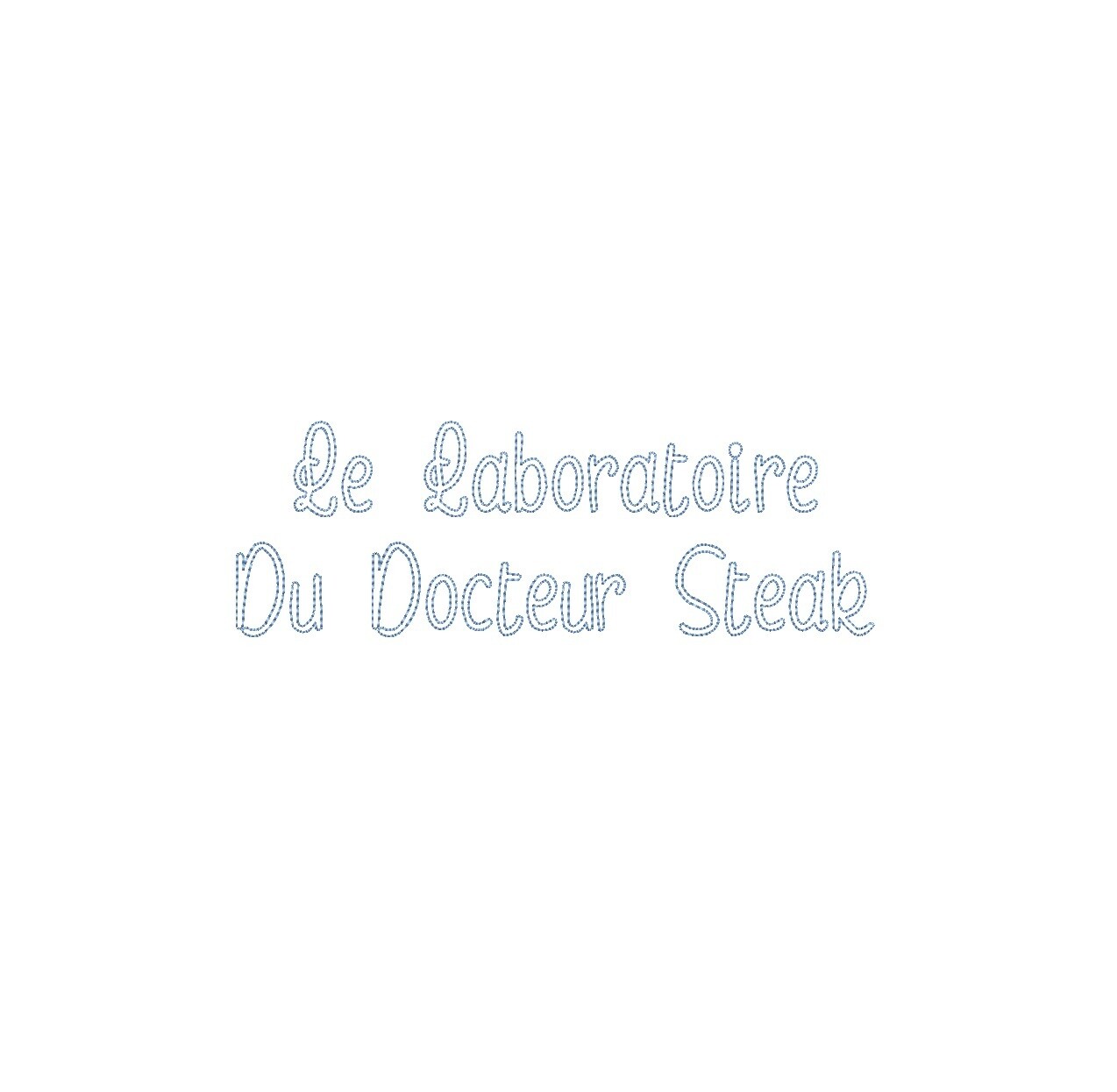
Explore the innovative Le Laboratoire Du Docteur Steak Bean Outline ESA font, meticulously tailored for compatibility with Wilcom Studio e4.5.6 and Hatch 3 versions and higher. Elevate your embroidery endeavors with this unique font, seamlessly merging scientific aesthetics and artistic flair. Engineered for precision, the Bean Outline ESA font adds a distinctive touch to your designs, whether for monogramming, embellishments, or personalized creations. Immerse yourself in creativity as you seamlessly integrate this font, ensuring impeccable stitching and unrivaled quality. Elevate your embroidery journey today with Le Laboratoire Du Docteur Steak Bean Outline ESA font—a must-have for Wilcom Studio and Hatch users.